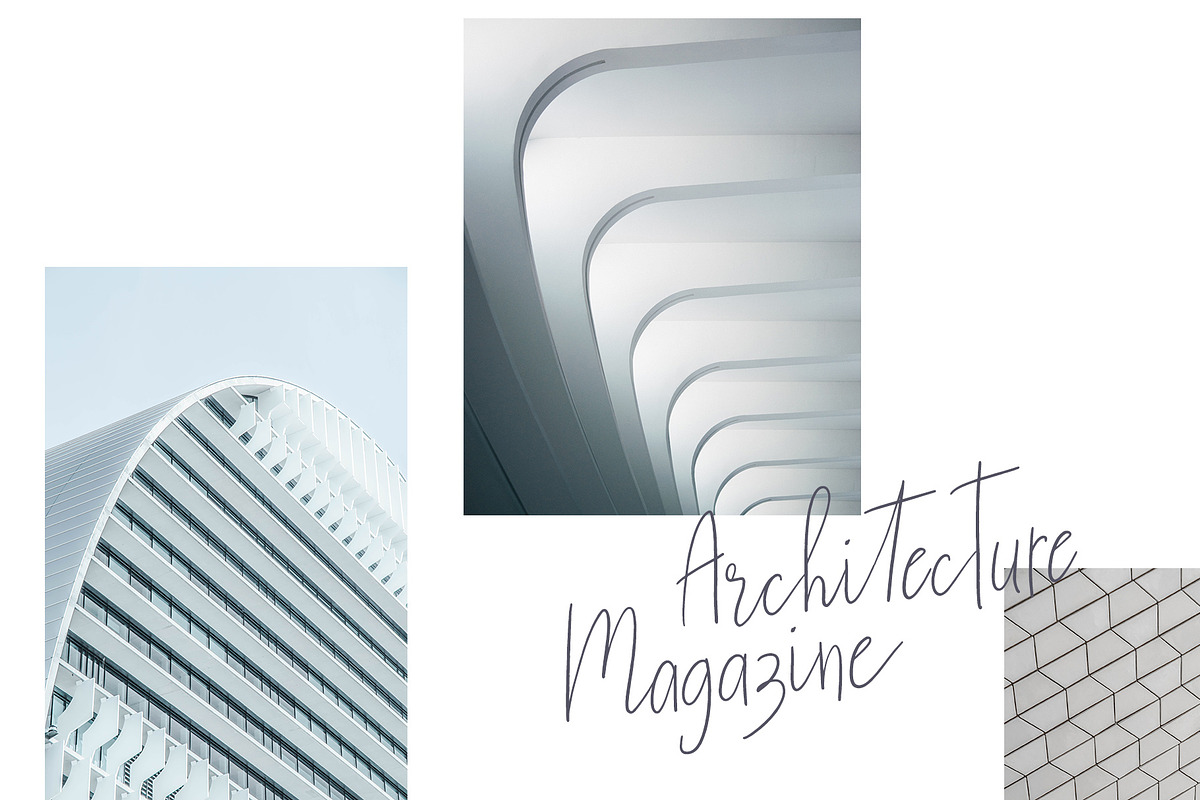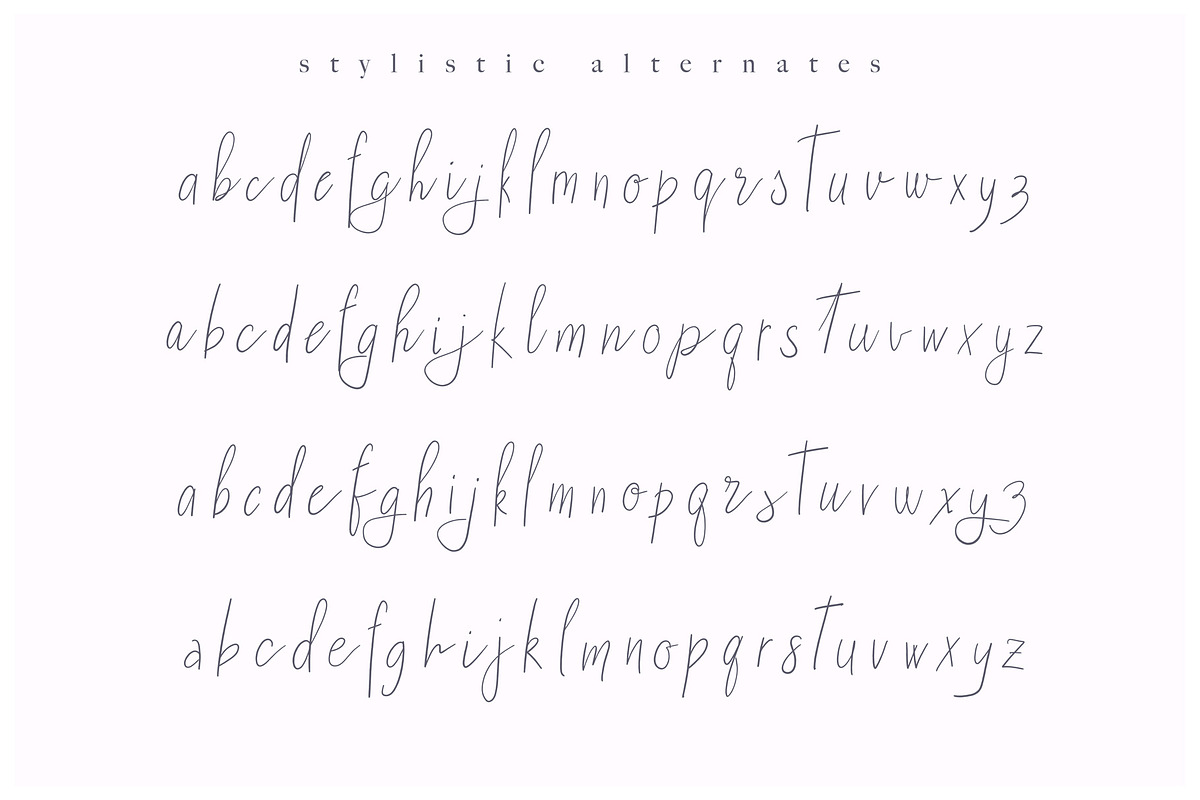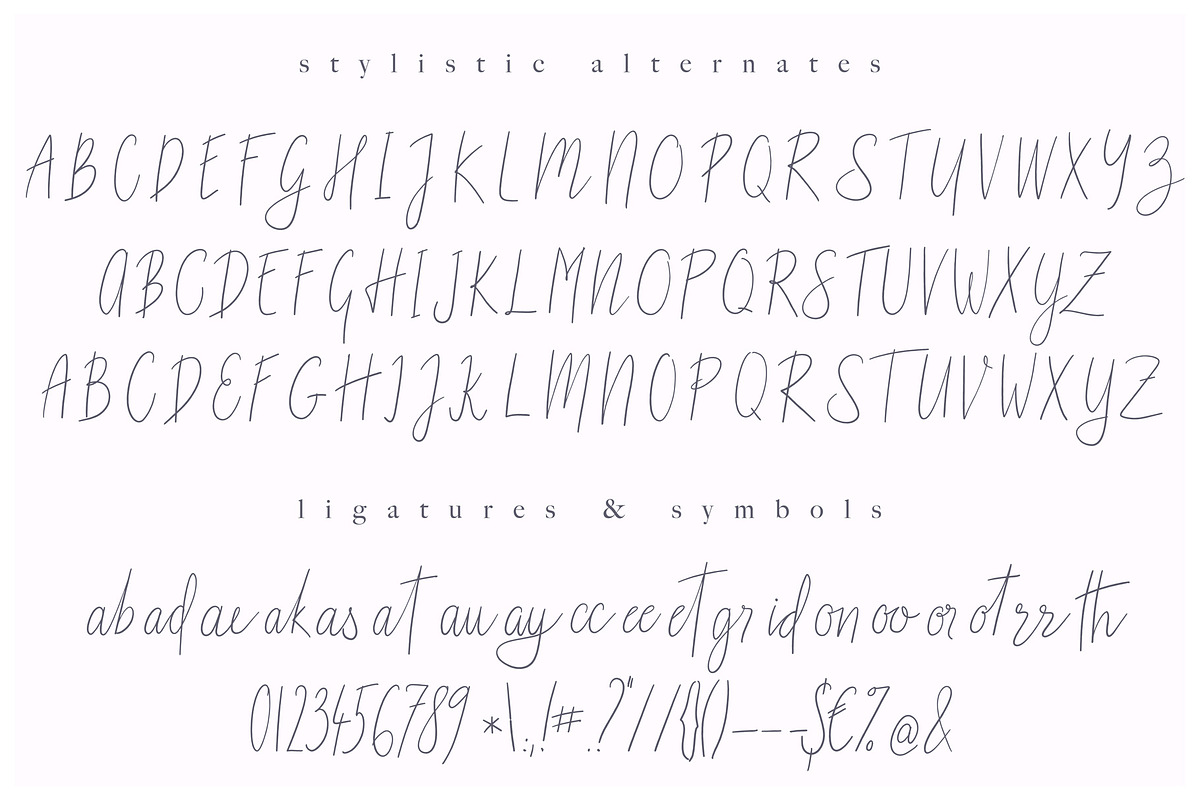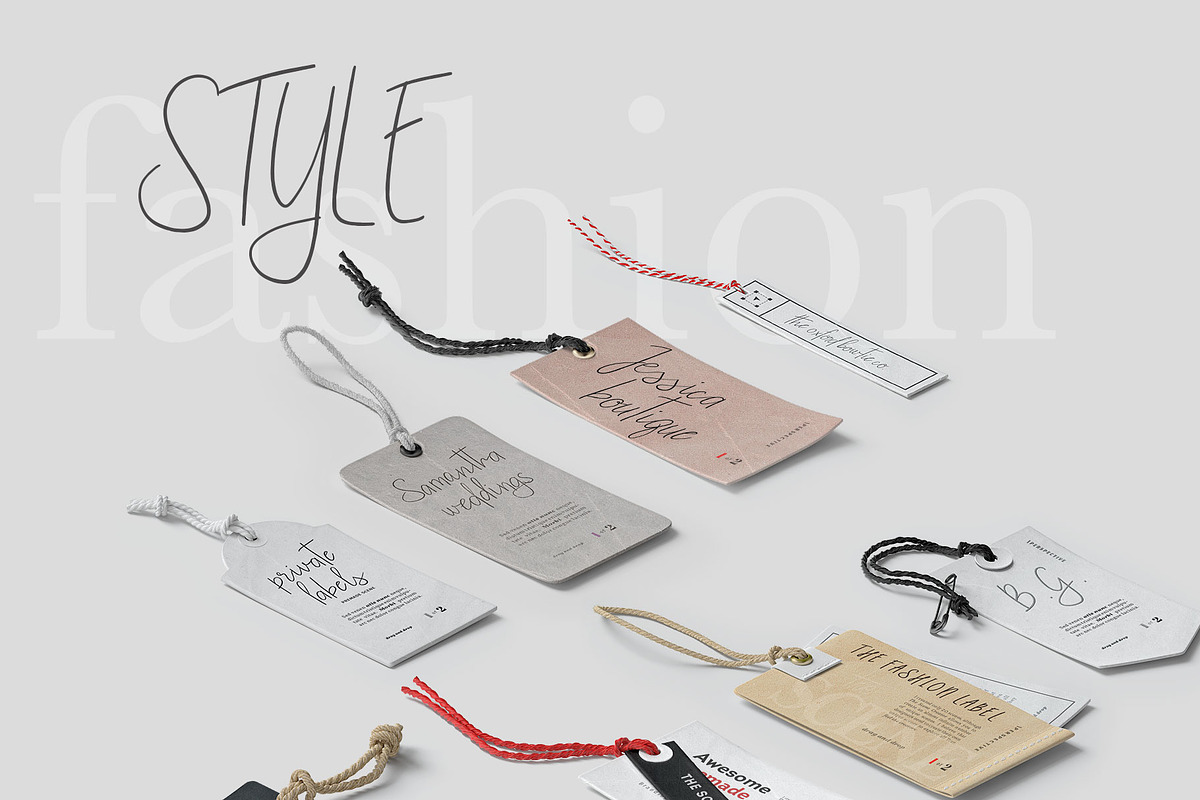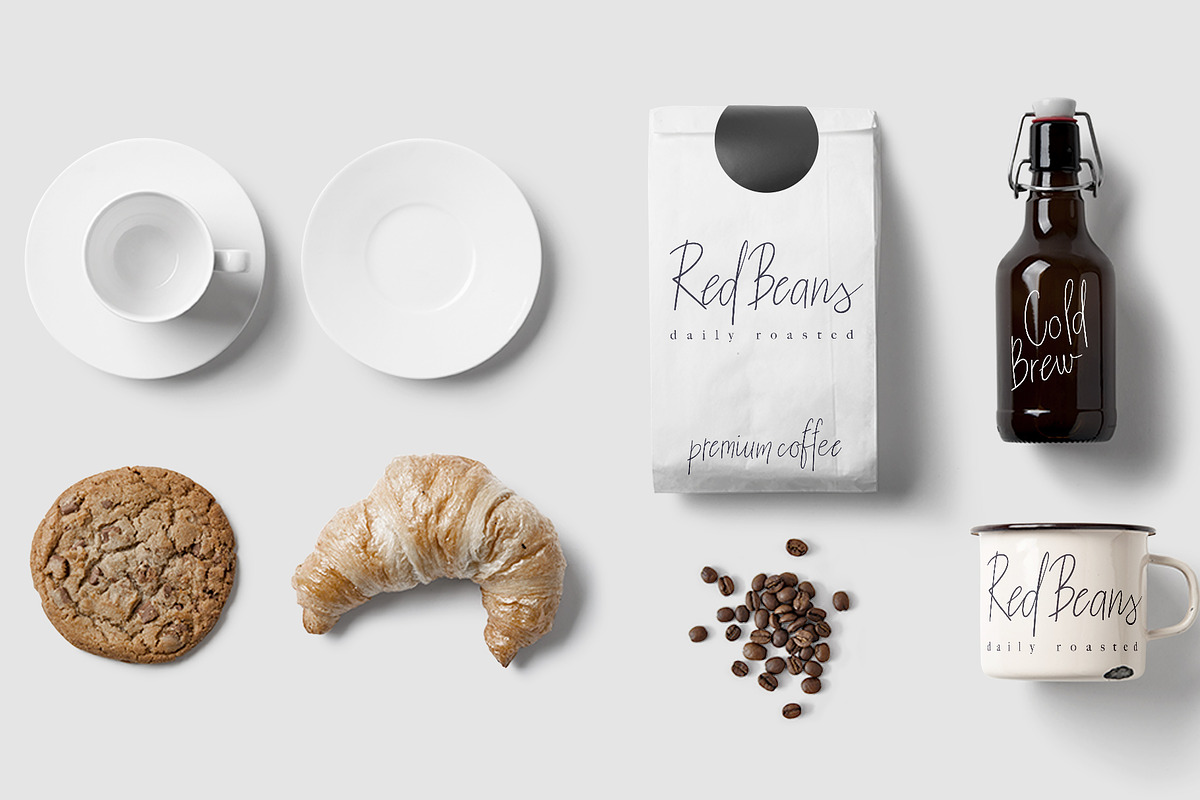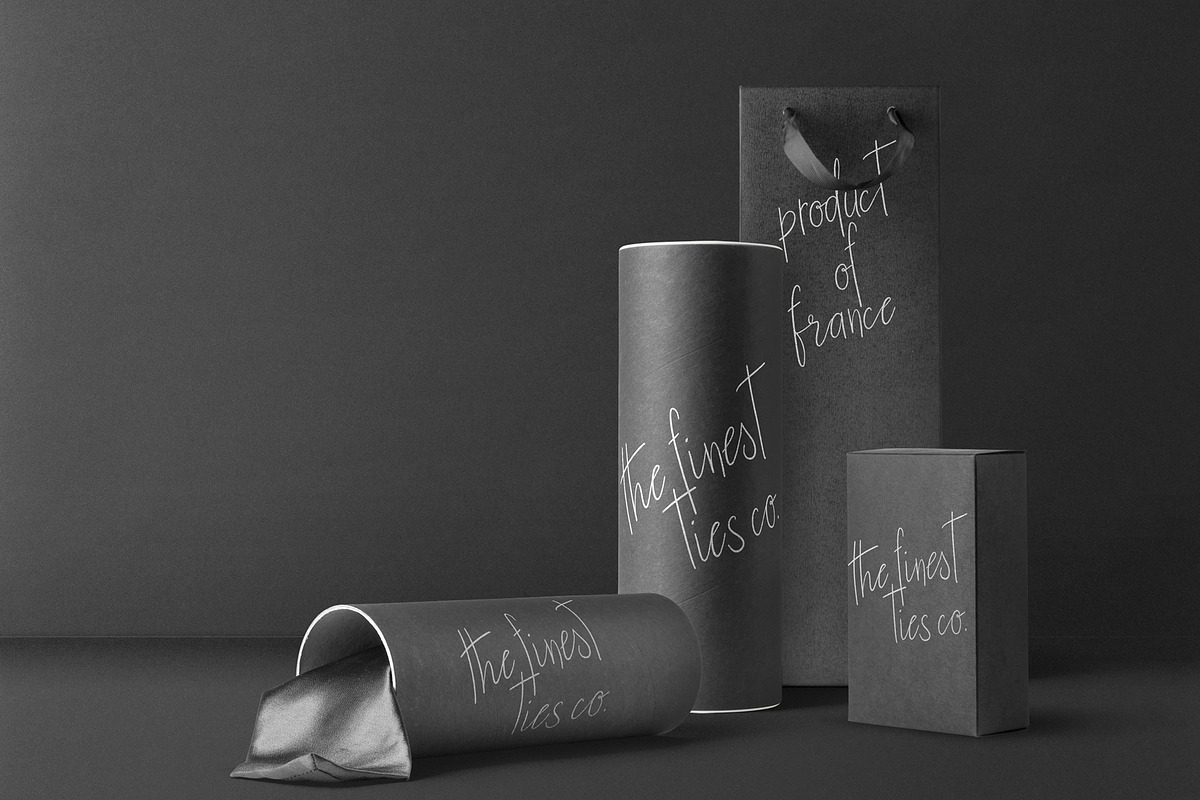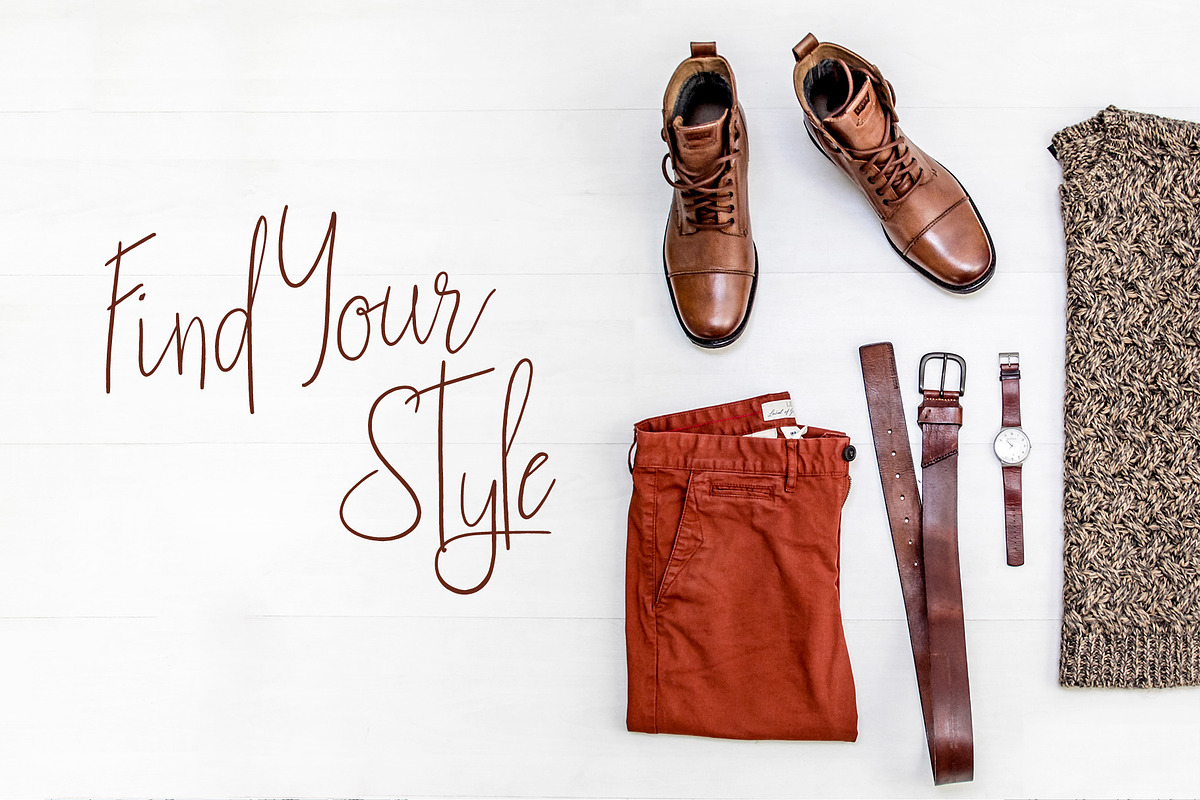
Fashion Style Font
Fashion style is a contemporary sophisticated stylish font. Ii is perfect for modern branding, social media, blogs, modern stationery, product packaging or wedding invites.
This font family includes 4 lowercase and 3 uppercase sets plus ligatures of most common letter pairs. With so many options you can easily give your texts the organic handwritten look - no repeating letters!
- This font family includes 4 lowercase and 3 uppercase sets plus ligatures of most common letter pairs.
- 4 lowercase sets
- 3 uppercase sets
- many ligatures